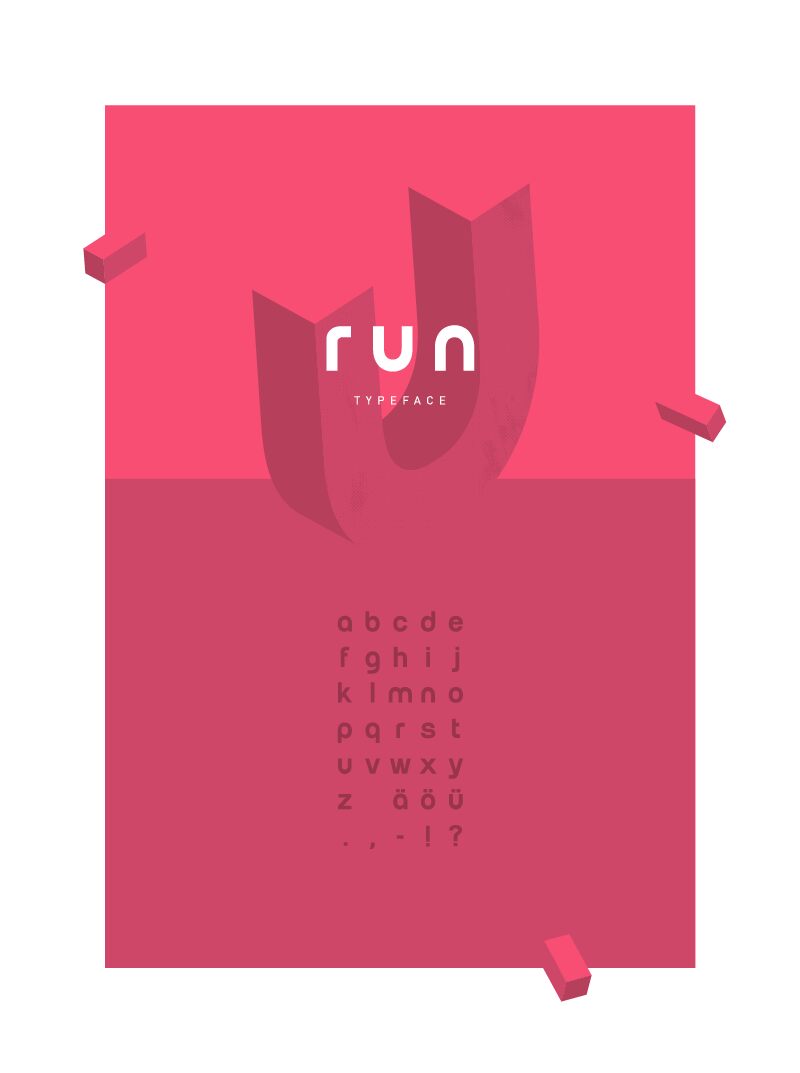
Perfect for logos.
The font 'run' is a small letter typeface with an dynamic, active look.
It works well for small headings, short paragraphs, logos and any
type of graphic design.
dynamic / active / steady / calm / heavy / modern
Run